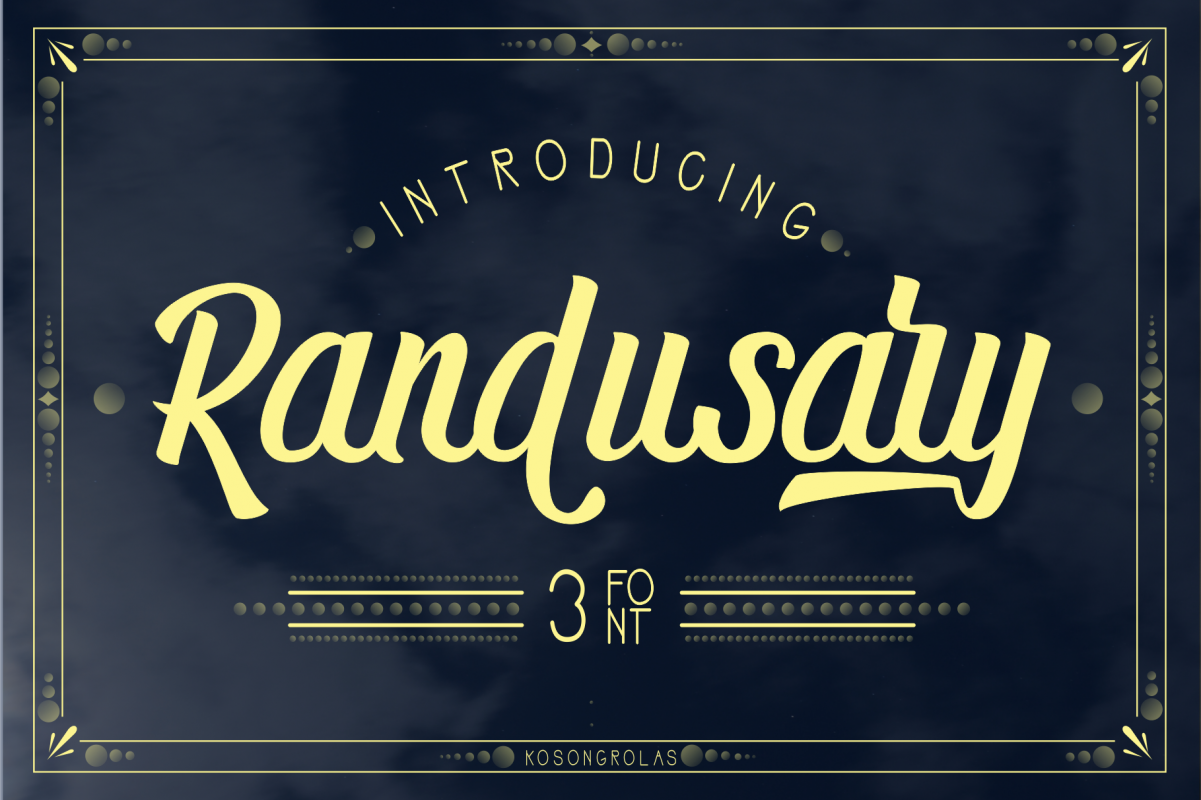
Randusary 3 Font
RANDUSARY SANS
RandusaryScript-Regular
RandusaryMonoline-Regular
introduced my first debut with Randusary Font Pack, why the font package because inside this font consists of three types, each font has its own uniqueness and has alternative and usefulness, for example brending, poster logo, label, and many more, make you interested and do not hesitate to buy it
There are 3 types of fonts
1. Randusary script
2. Randusary Monoline
3. Randusary Sans